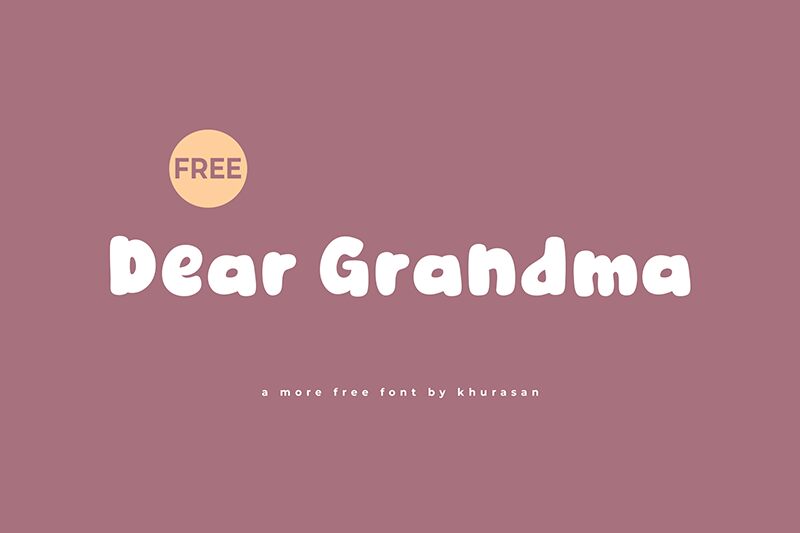
Dear Grandma
Dear Grandma font by Khurasan is a bold, cartoon display font inspired by retro style. The design elements employed in this typeface make it informal, friendly, soft, and even casual. It’s a fun and inviting font that brings authentic vibes to every project in which it is engaged. Your eyes are guaranteed to be pleased by looking at its unmissable design!
Advertise your company or product with Dear Grandma which can be easily used for posters, flyers, business cards, product labels, packaging boxes, or bags. Add to all this different types of illustrations (comic books), website headers and titles used for magazines whether printed or online. To top it all off this is a free display font!